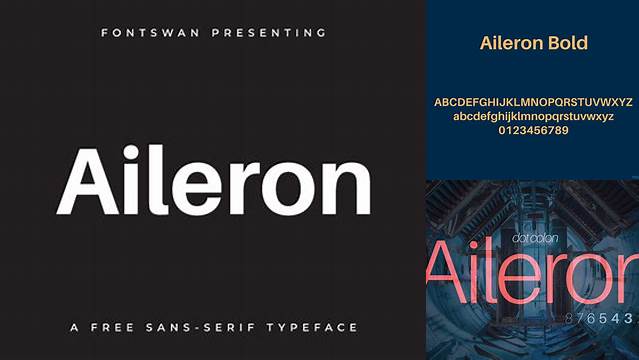
Aileron Bold Font: Free Download & How To Use It
Aileron Bold Font: Free Download and Everything You Need to Know
Hey everyone, are you on the hunt for a fantastic, eye-catching font that can really make your designs pop? Look no further, because today we're diving headfirst into the world of Aileron Bold font! We'll cover everything from where you can snag a free download to how you can use it to elevate your projects. So, grab a coffee, get comfy, and let's get started! We're going to unpack all the details and show you why Aileron Bold font is an excellent choice for both seasoned designers and creative newbies alike. The font family is celebrated for its clean lines, modern aesthetic, and impressive versatility. Whether you're crafting a professional presentation, designing a website, or just looking to add some flair to your personal projects, Aileron Bold has you covered. But where do you start? And what makes this font so special? Let's find out together.
What is Aileron Bold Font?
First things first, what exactly is Aileron Bold font? Think of it as a member of the sans-serif family. This means it lacks the little decorative strokes (serifs) that you see on fonts like Times New Roman. Instead, it boasts a clean, straightforward design that's incredibly easy to read, both online and in print. Aileron Bold font is part of the broader Aileron font family, created by the talented designer, Ćukasz Dziedzic. It comes in a variety of weights and styles, but Aileron Bold is the one we're focusing on today. It's the font's heavy hitter, offering a strong and confident presence that's perfect for headlines, titles, and any text that you want to stand out. The font's clean, geometric shapes make it very adaptable. It's a modern font that doesn't feel dated, making it perfect for contemporary design work. The design of the Aileron font is influenced by other classic fonts, but it has its own unique personality. Itâs designed with a focus on legibility and functionality, making it a great choice for various uses.
Let's delve into some of the key features that make Aileron Bold font a standout choice. One of the primary reasons it's so popular is its excellent readability. Because it's a sans-serif font, the characters are clear and distinct, which is crucial for both digital and print media. This makes Aileron Bold ideal for everything from website headers to brochures, as users can easily absorb the information. The font also has a remarkably neutral appearance. This versatility means it can fit seamlessly into a wide range of design aesthetics. Whether you're aiming for a minimalist, modern look or something a bit more classic, Aileron Bold font will complement your project. Another great feature is its availability. The Aileron font family offers a wide range of weights and styles. Aileron Bold is particularly striking, creating a visual impact while maintaining a high level of readability. Its versatility goes beyond aesthetics, extending to its practical uses. The font is suitable for a variety of applications, from body text to display typography. The consistent design across the different weights within the Aileron family ensures that your designs maintain a cohesive look, no matter what you're using it for. Aileron Bold font has a geometric structure. This geometric structure contributes to its modern feel. The clean lines and well-defined shapes make the font visually appealing and easy to incorporate into modern design. The font's subtle details also contribute to its overall appeal. The designer has paid careful attention to the curves and angles, making the font both visually pleasing and functional. You can easily download the font and get started with your design projects.